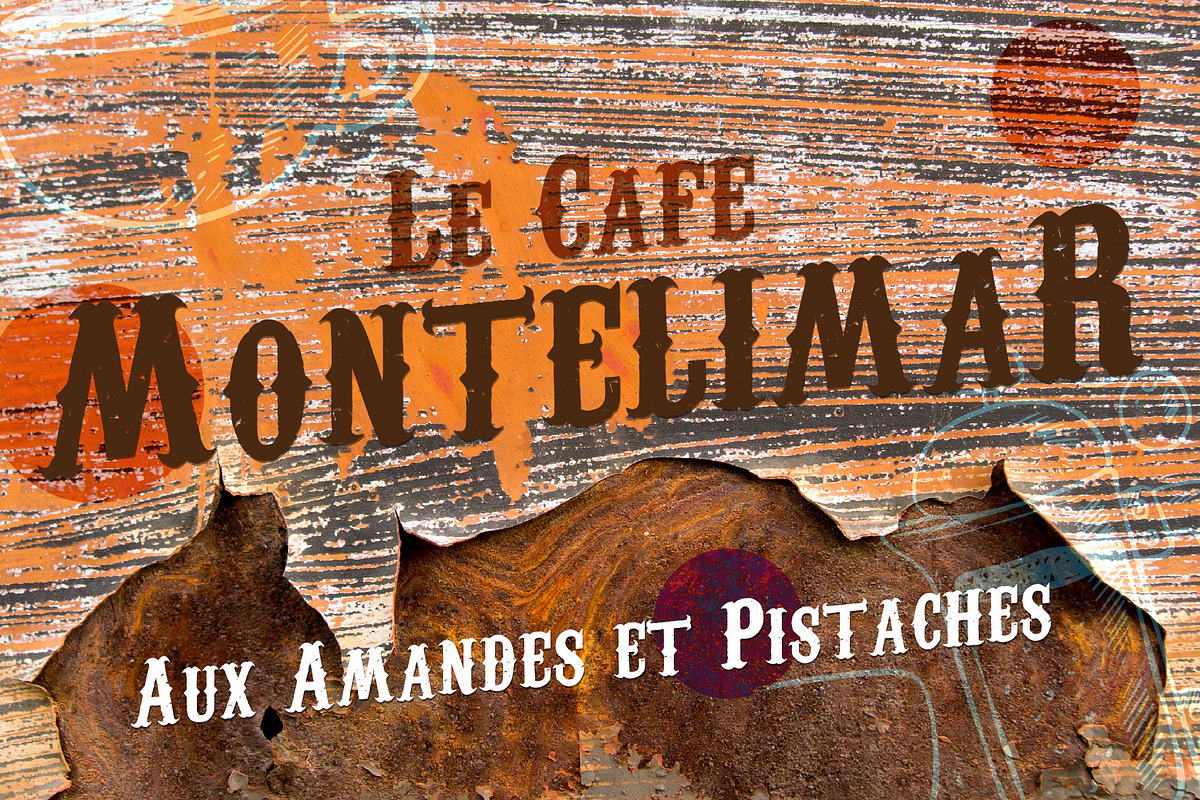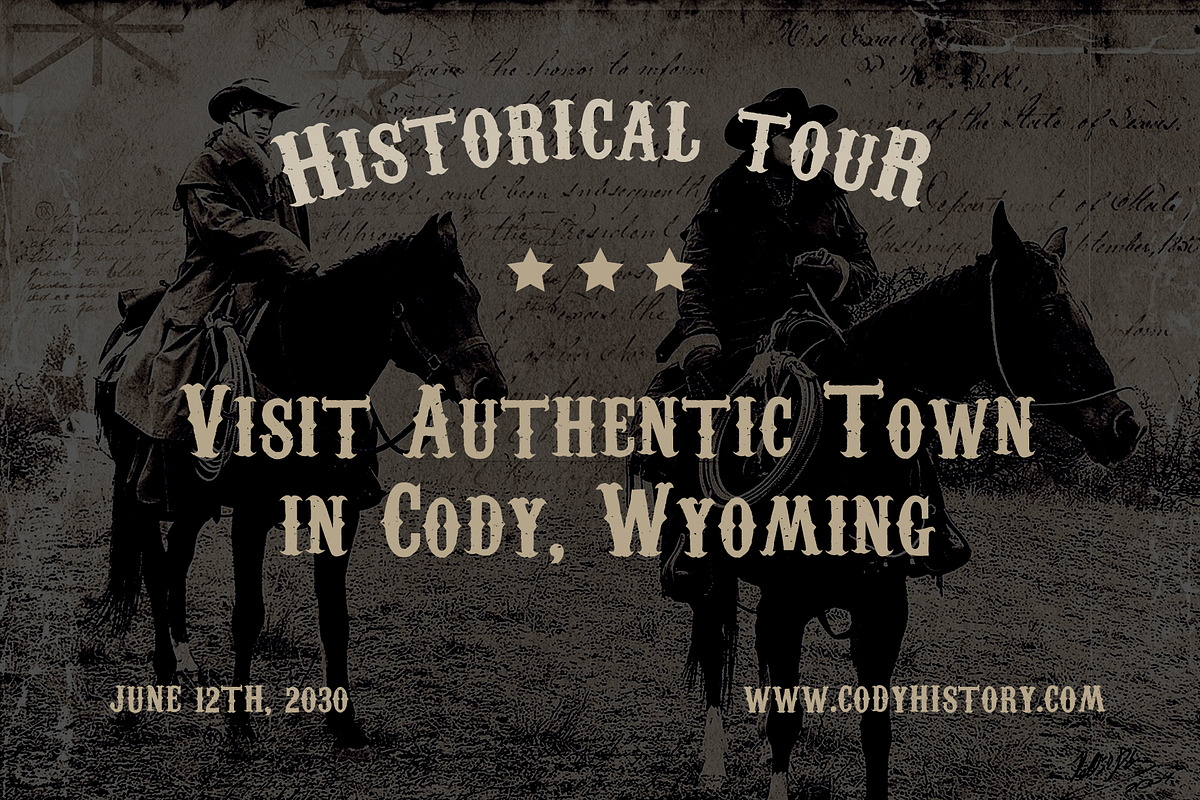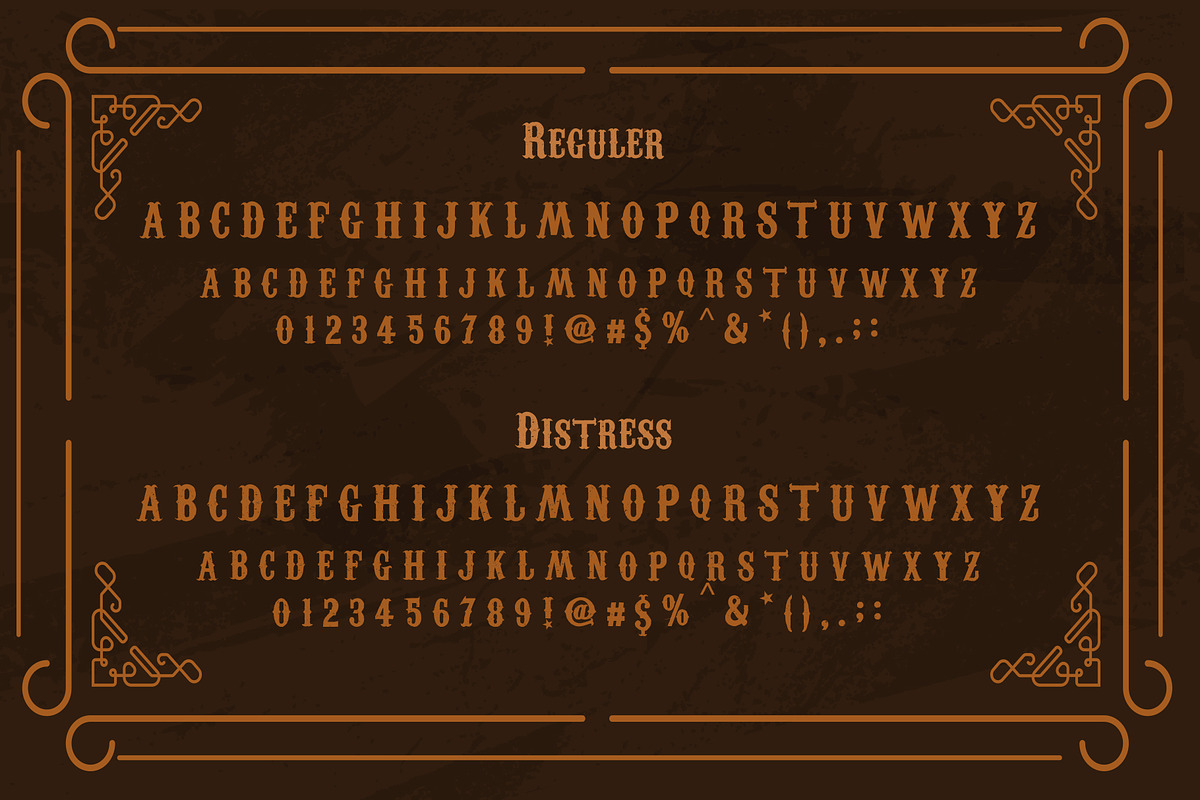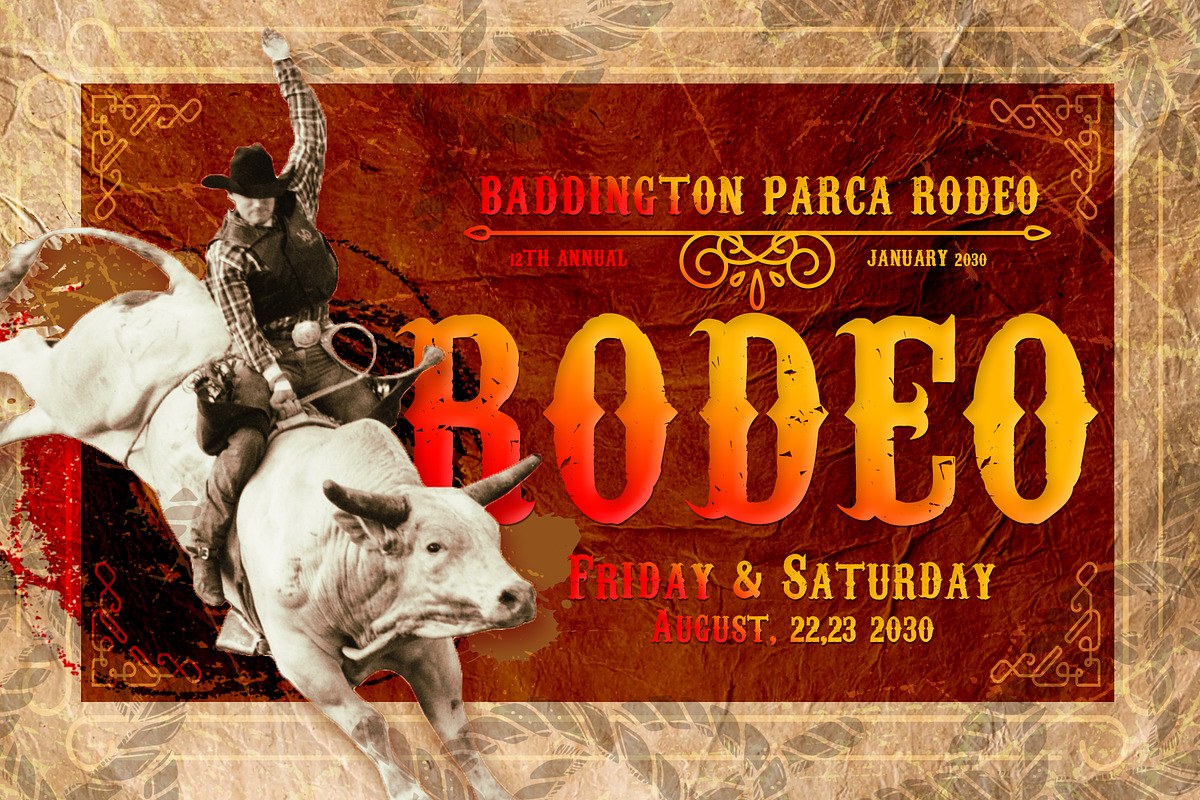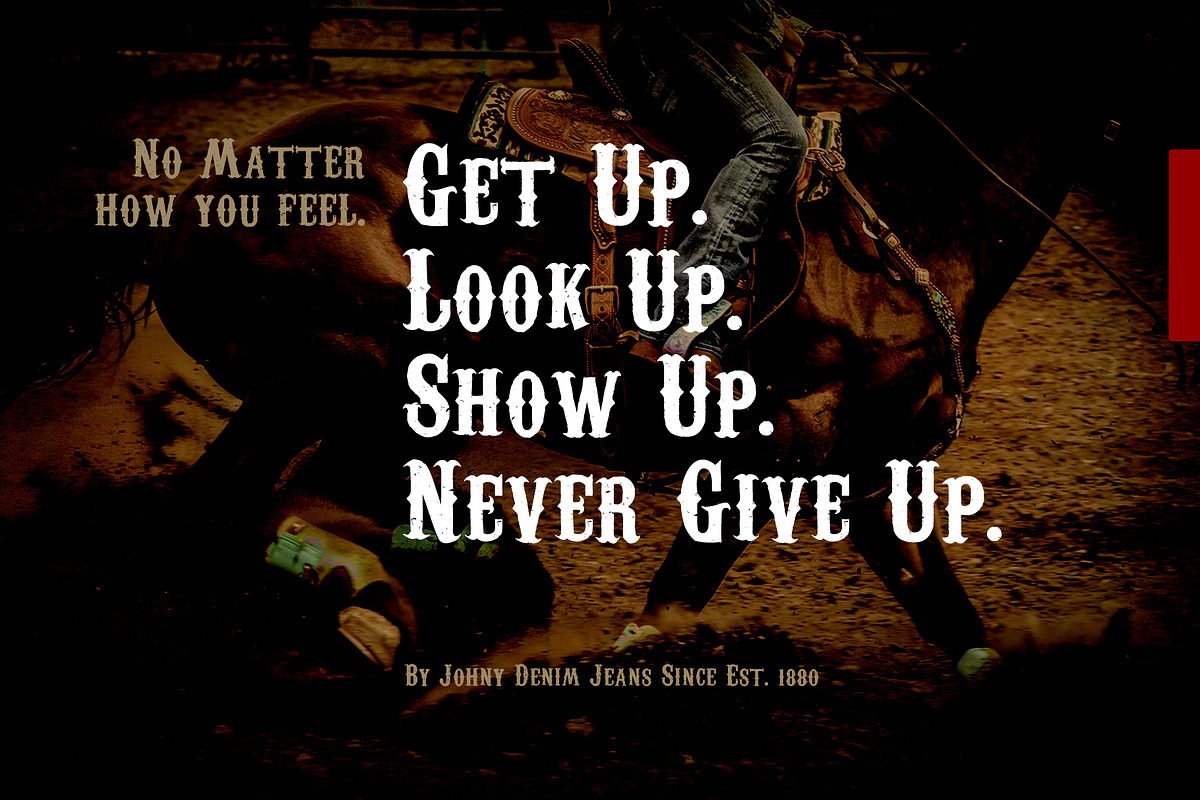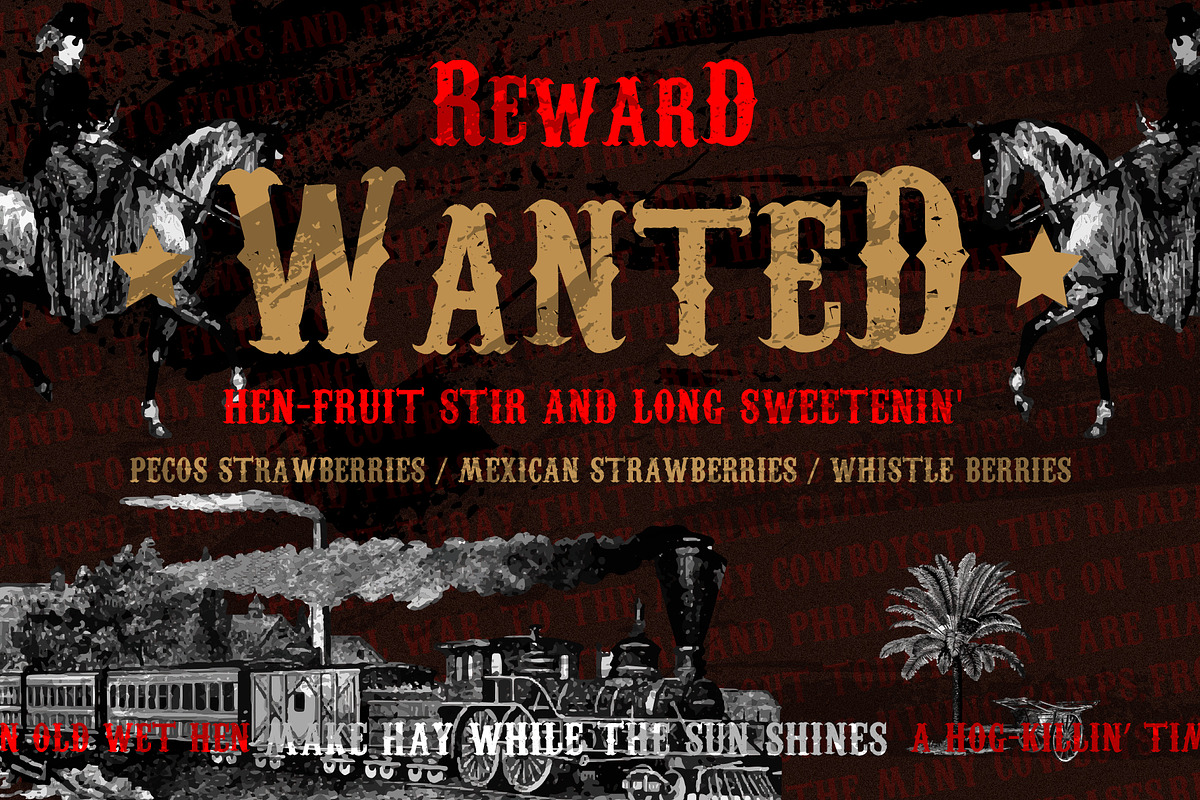
Coddiwomple Old Western Font
Introducing Coddiwomple old western font made carefully handcrafted. The complete type from Caps and Lower Caps, numeric and punctuation. The font comes up with two style, Coddiwomple Regular and Coddiwomple Distress.
All Caps and Small caps for lower case keyboard
- All Caps and Small caps for lower case keyboard
- Numeric
- Punctuation
- Coddiwomple Regular
- Coddiwomple Distress
Coddiwomple Old Western Font by Artdorable fits naturally into Branding, posters, packaging, typography.